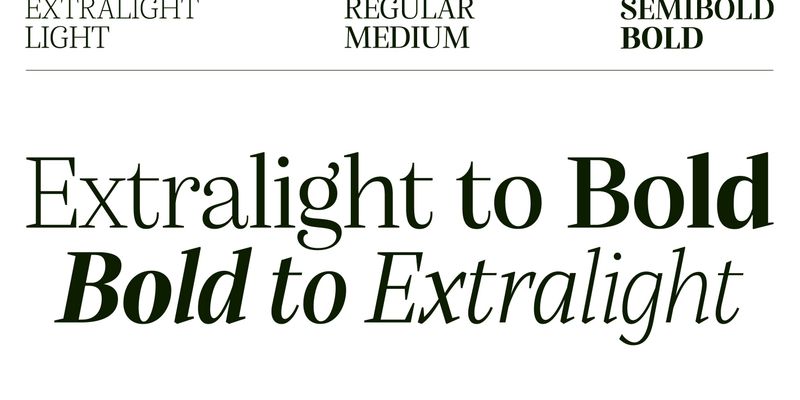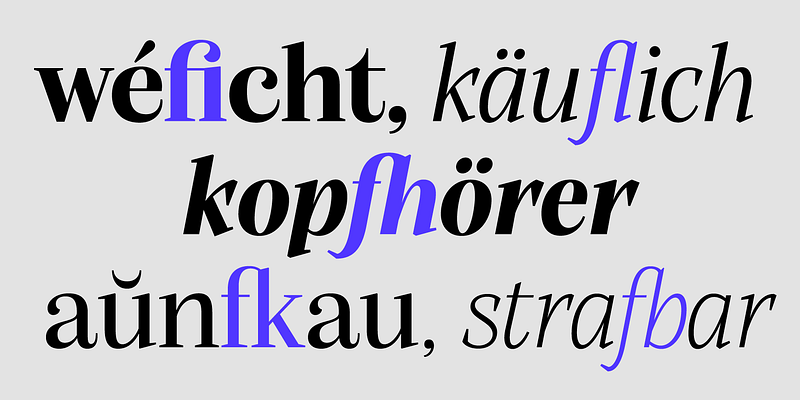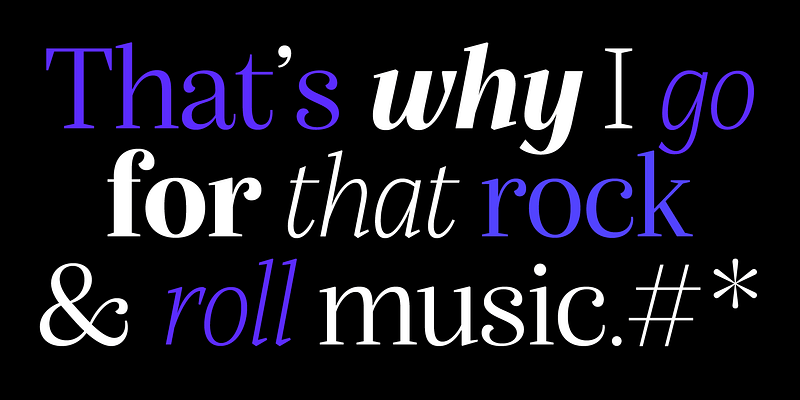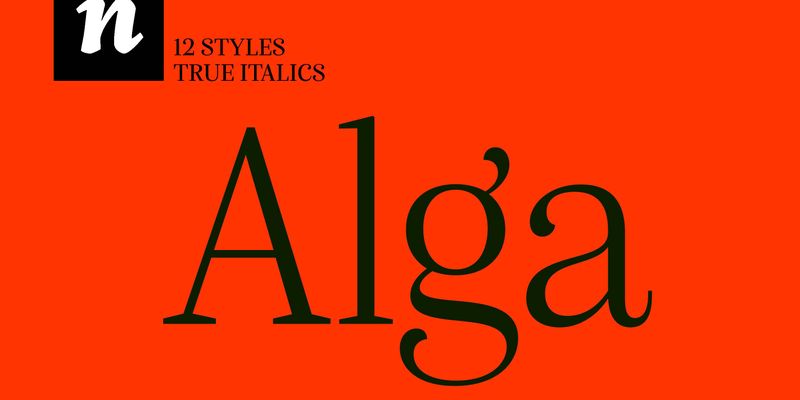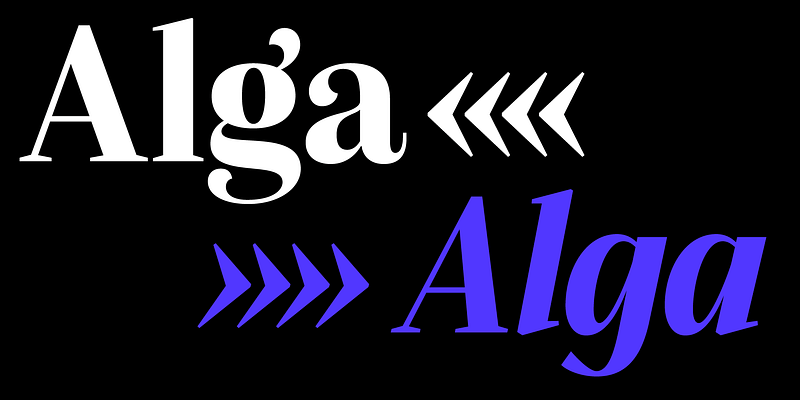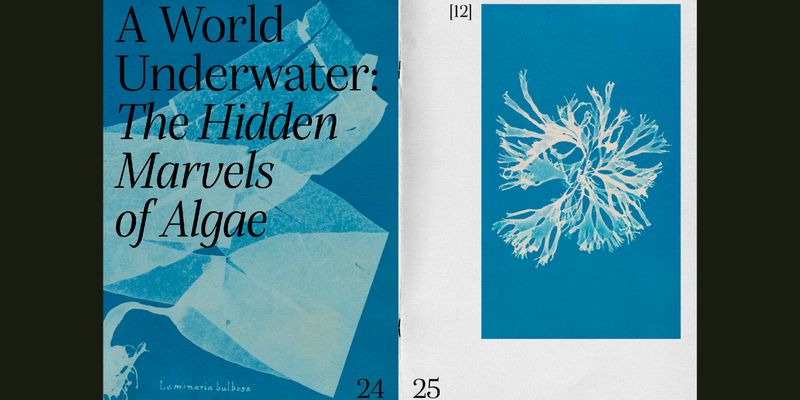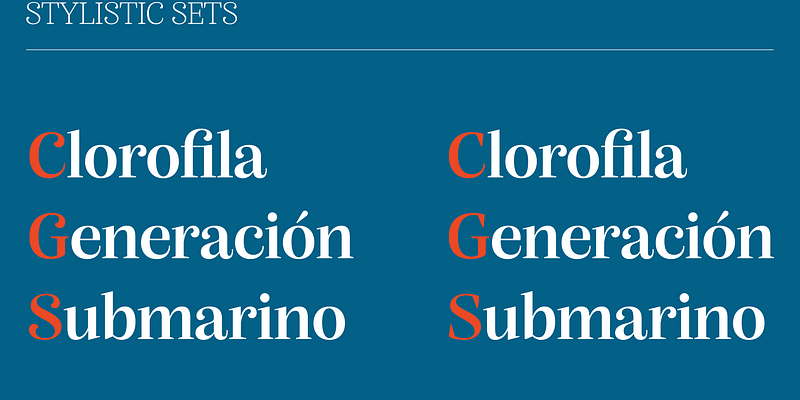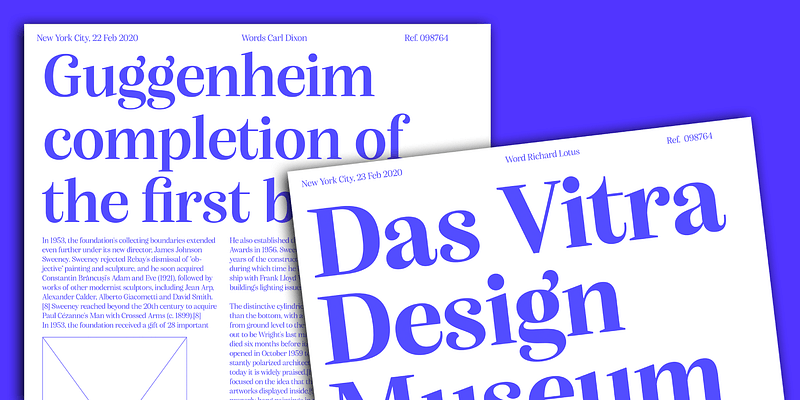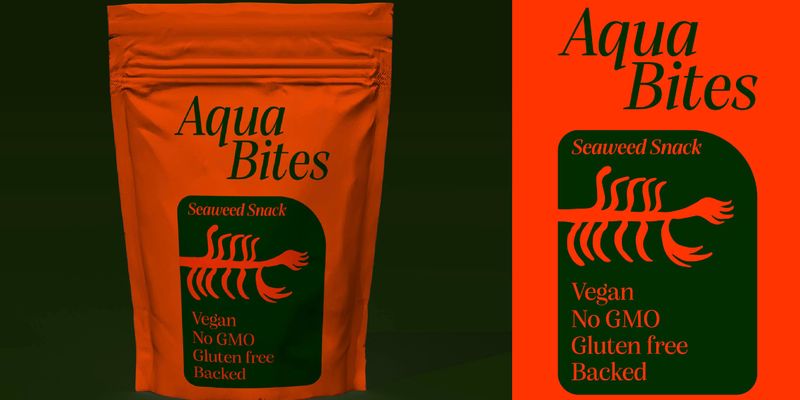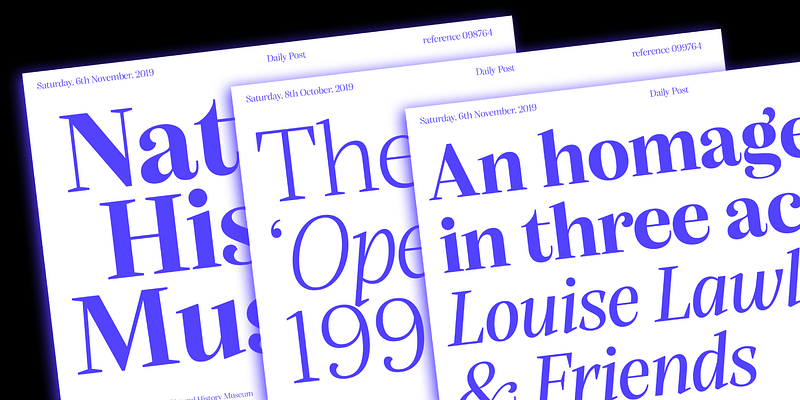
Alga is a high contrast modern typeface with a contemporary look. It has subtle details that make it appealing for big sizes. It is a lively serif typeface with lots of fancy curves.
It will shine in headlines and short pieces of text.
Cultivating sunny fonts for warm humans. Nova Type was founded in Porto, Portugal in 2018 by Joana Correia, the already well-established and multi-award winning type designer. She creates warm and vocal retail fonts. Nova Type experiments with new ideas to create something designers love to use — something to shape text like an architect and infuse content with emotion.